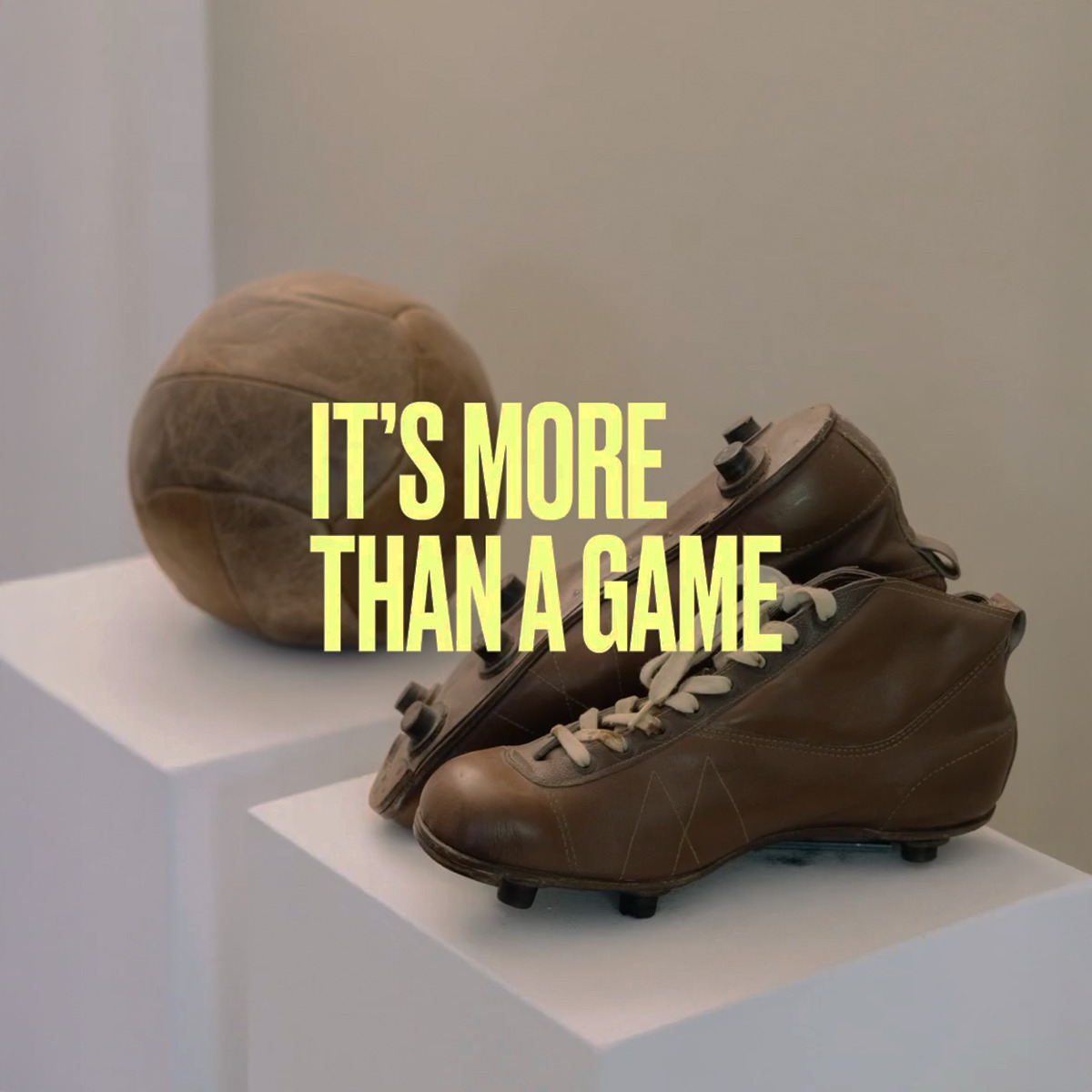
Lentze.Stopper is a German law firm specialised in the representation of athletes, sports associations, and sports events. The company assists with arranging paperwork for establishing an association, managing the paperwork and finances of a sports club, or representing an athlete in court. Druk by Commercial Type and Suisse Works by Swiss Typefaces are used in the firm’s brand identity, developed at ABC&D design studio.
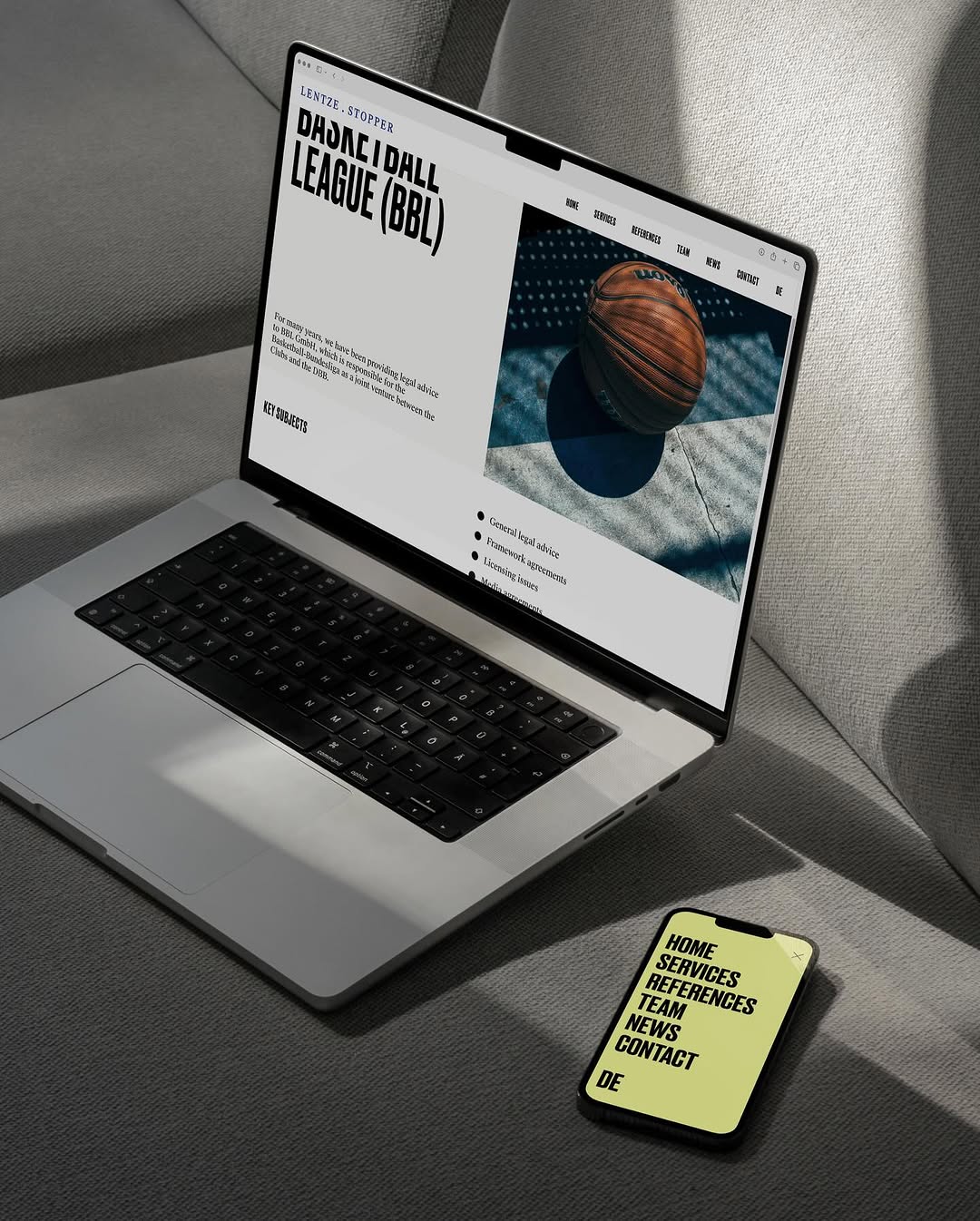
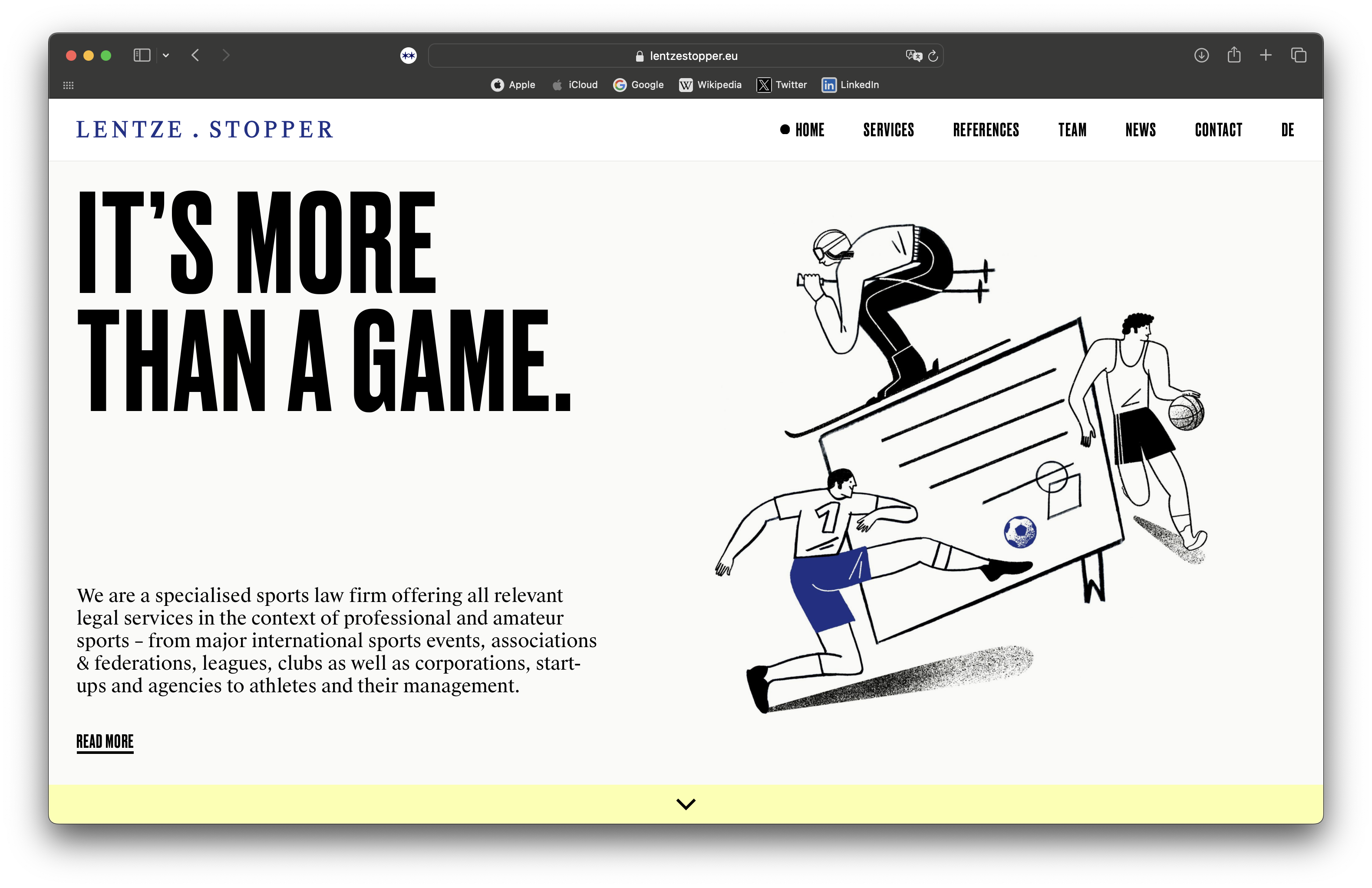
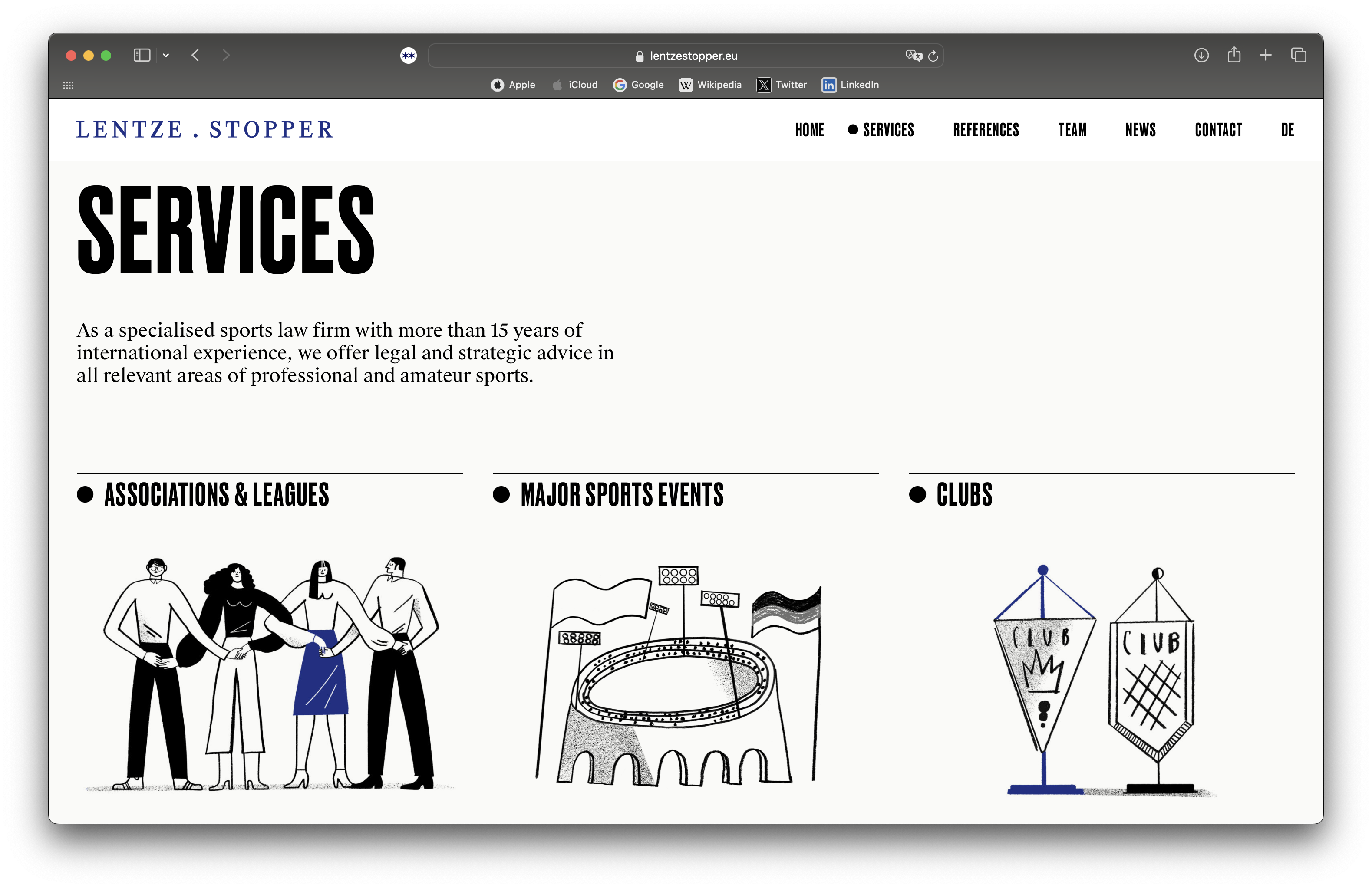
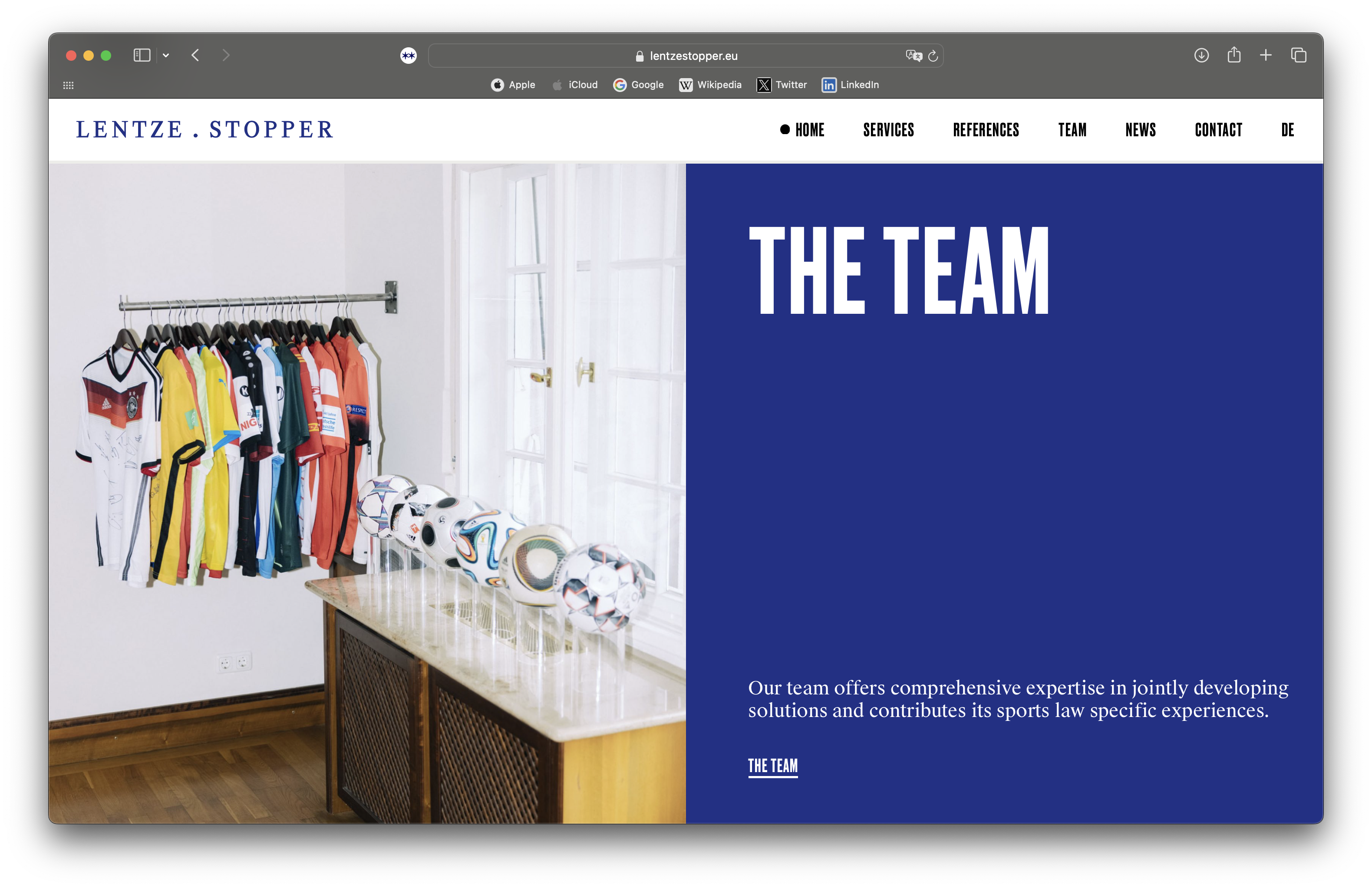
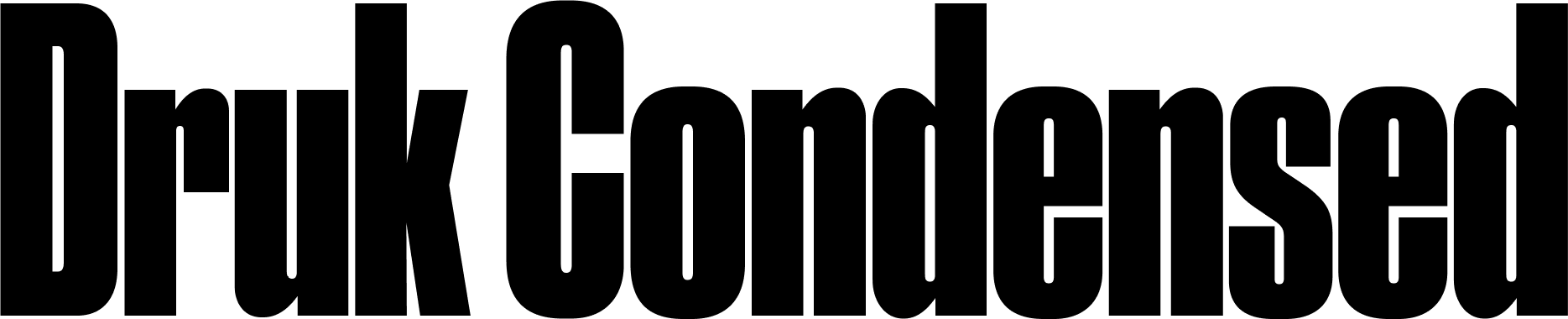
Druk is a collection of extremely narrow, extremely wide, and extremely heavy faces, part of the Commercial Type library. Although it was deliberately created without any styles of regular width or thinner than semi-bold, its text versions work great even at smaller sizes. Druk is authored by Berton Hasebe, with its Cyrillic extension designed by CSTM Fonts.